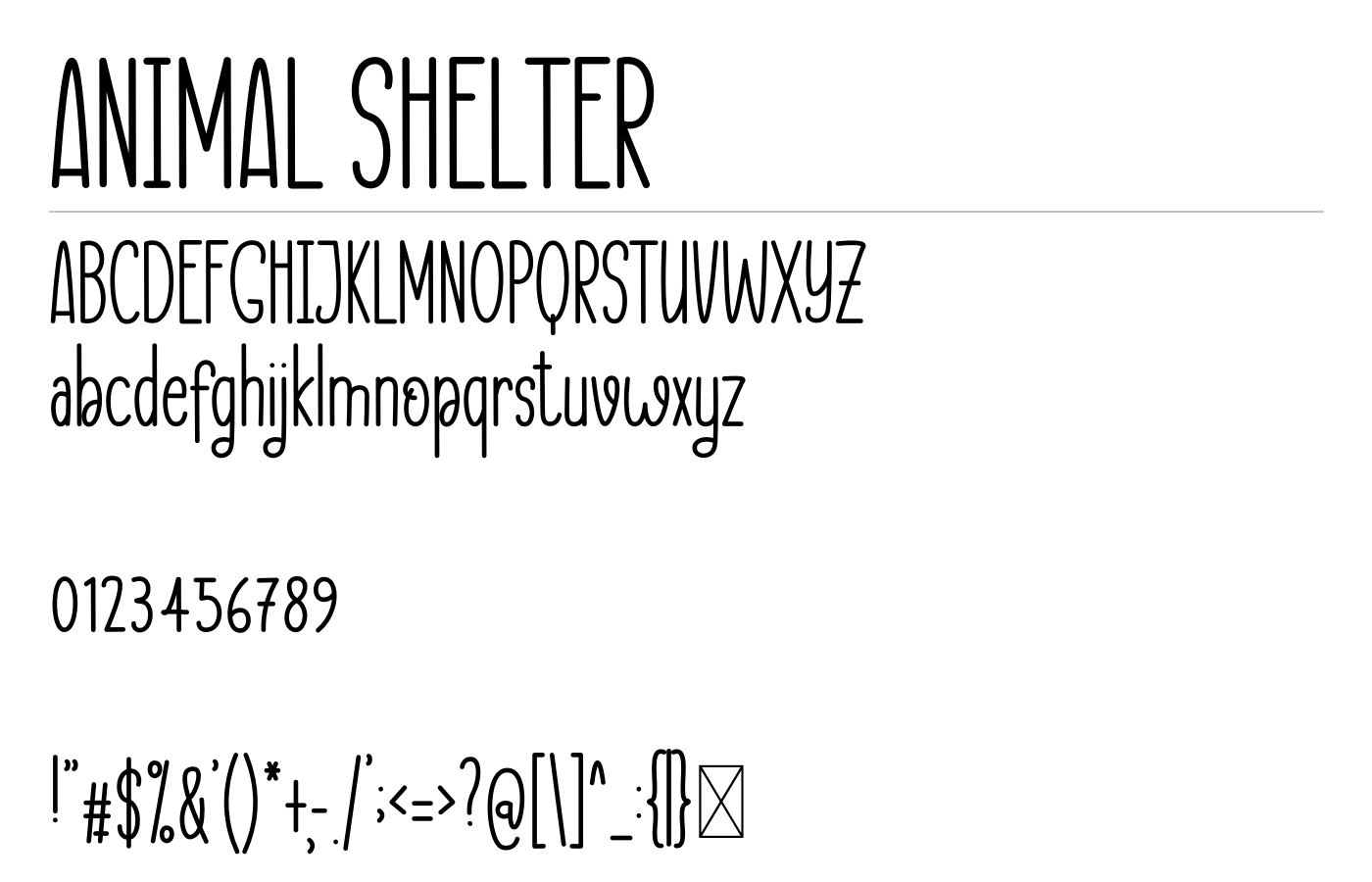
ANIMAL SHELTER is a quirky, narrow sans serif font with a playful and hand-drawn feel, characterized by tall, slender letterforms and subtle irregularities that add charm and personality. Its light weight and casual style make it ideal for projects wanting a friendly and approachable vibe, perfect for children's books, informal branding, or creative headlines where a touch of whimsy is welcome.
ANIMAL SHELTER Font
About ANIMAL SHELTER Font
| Font family | ANIMAL SHELTER Font |